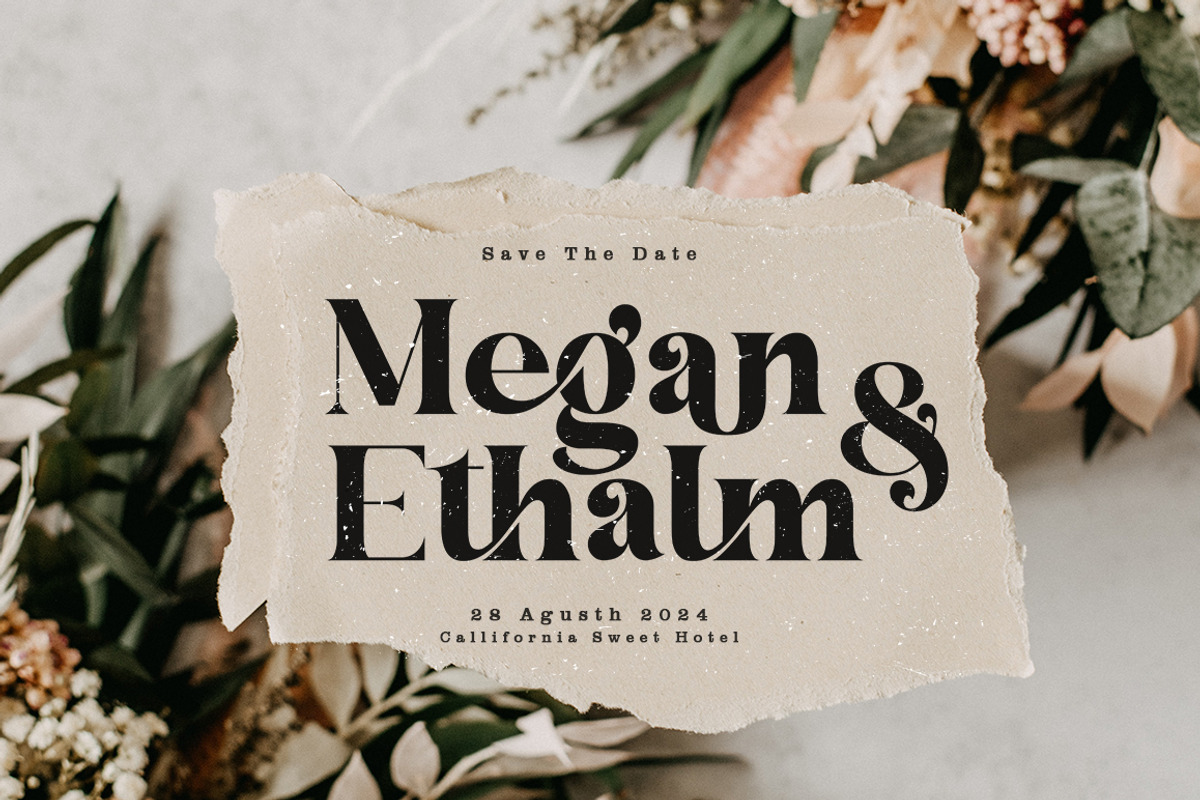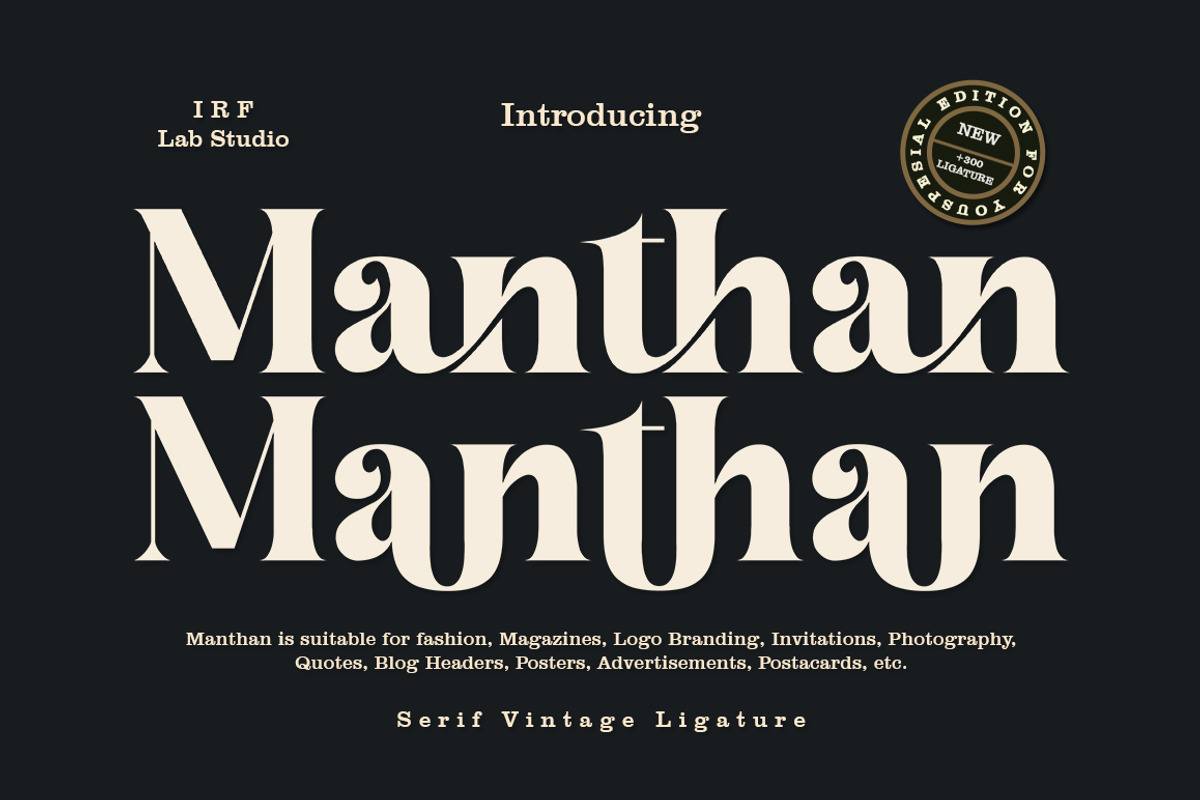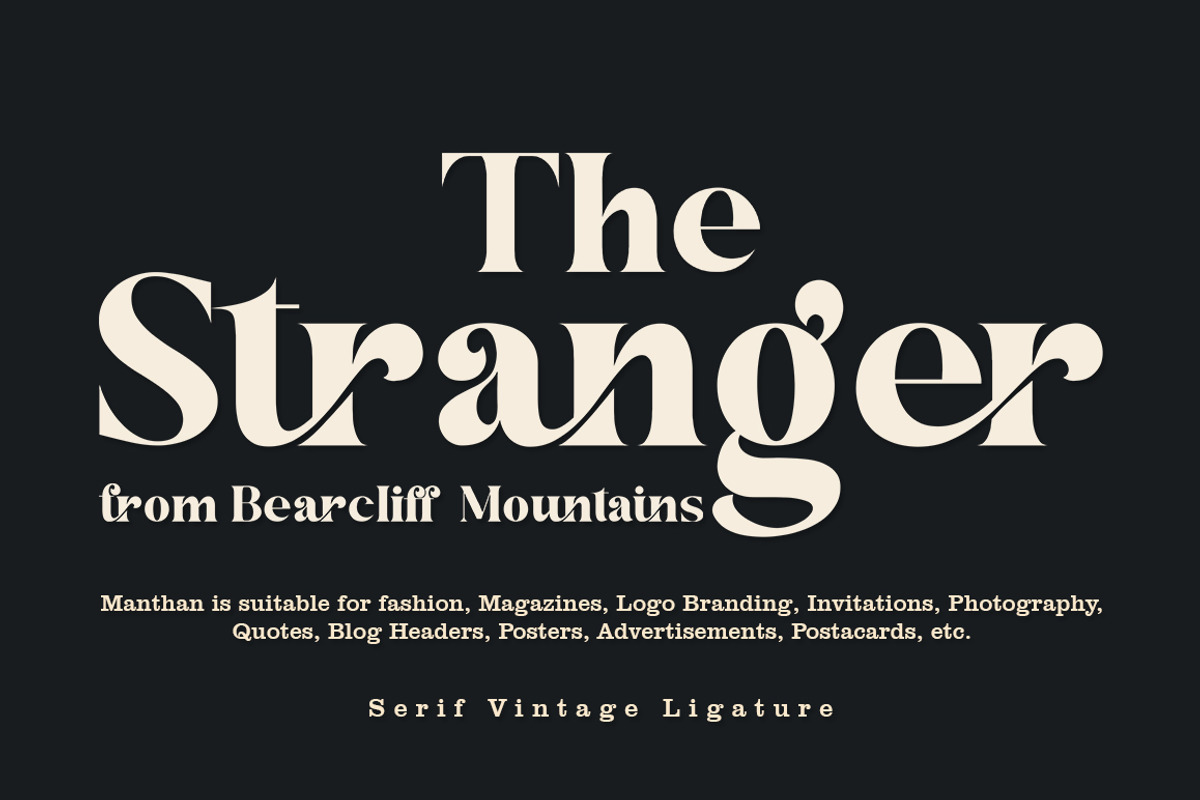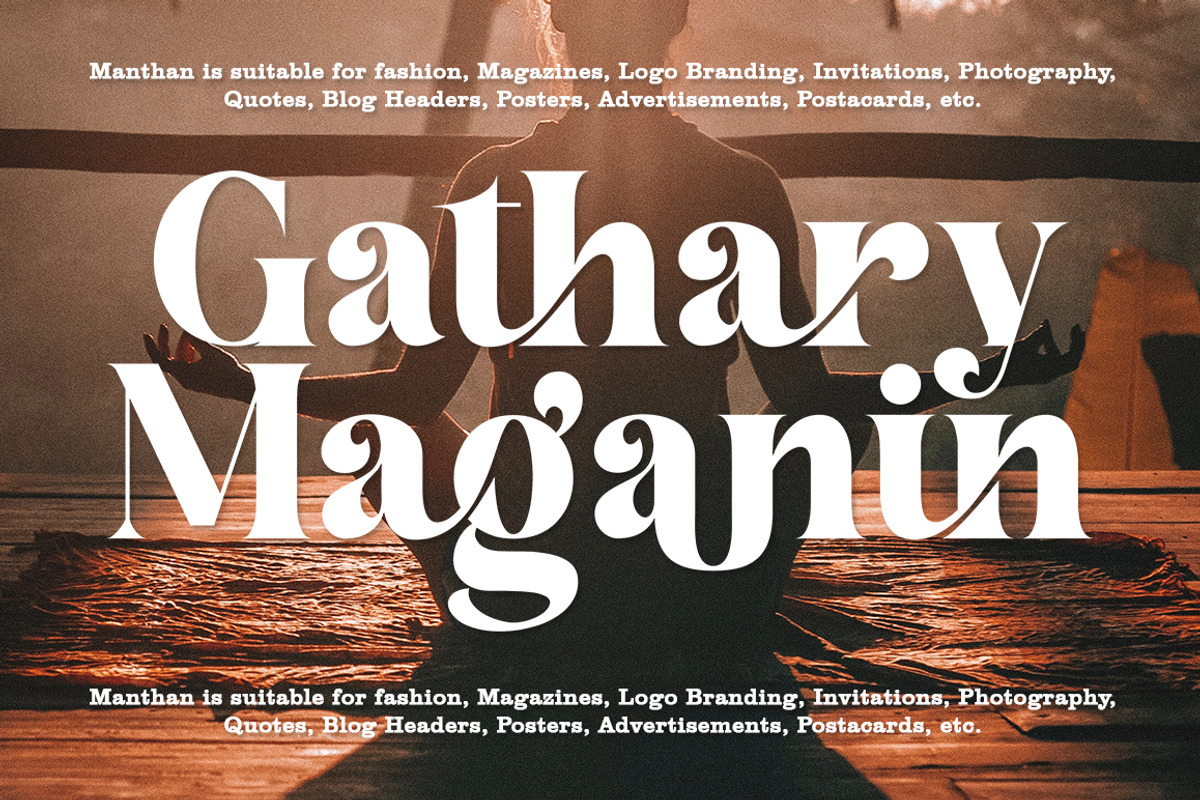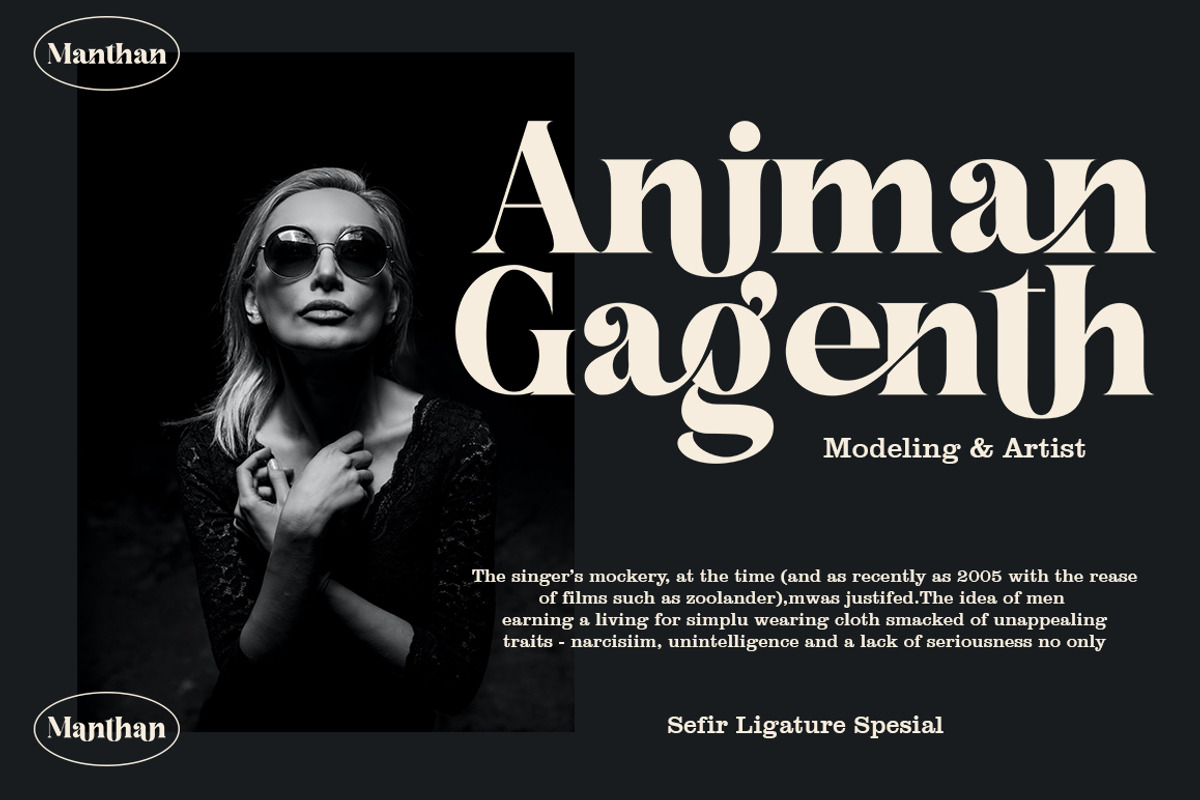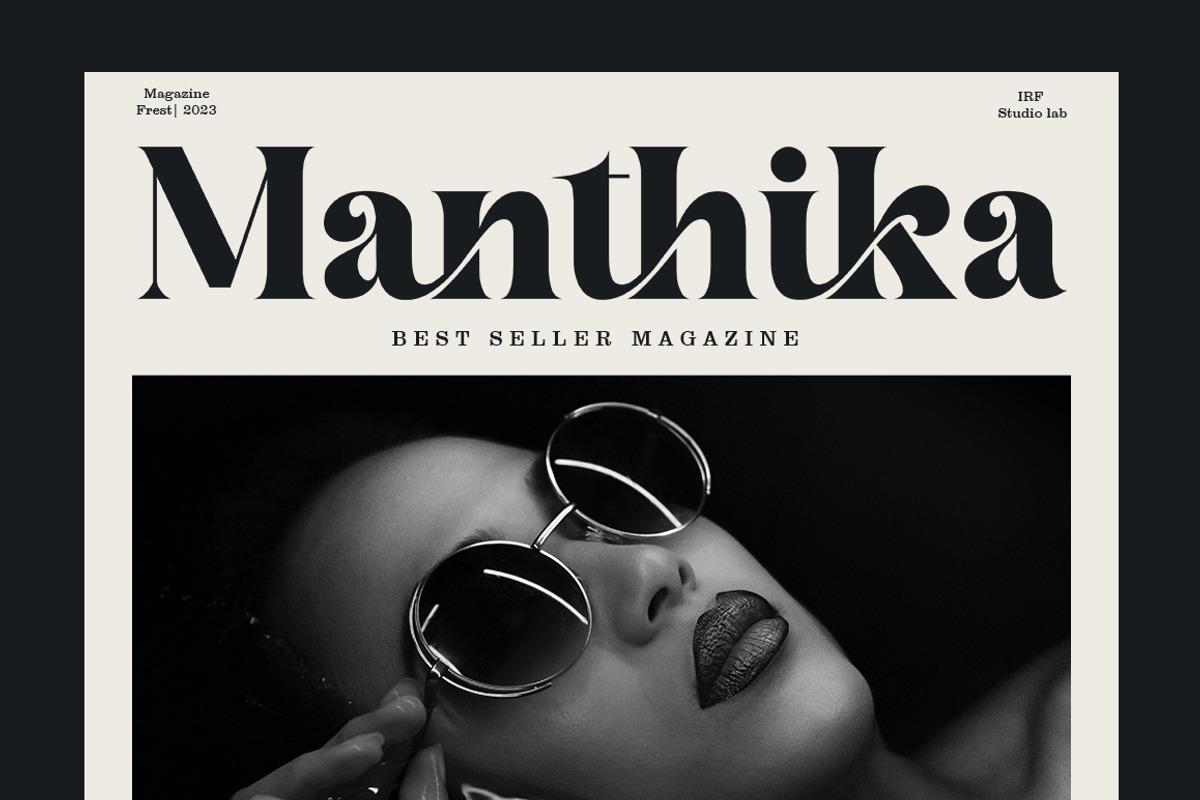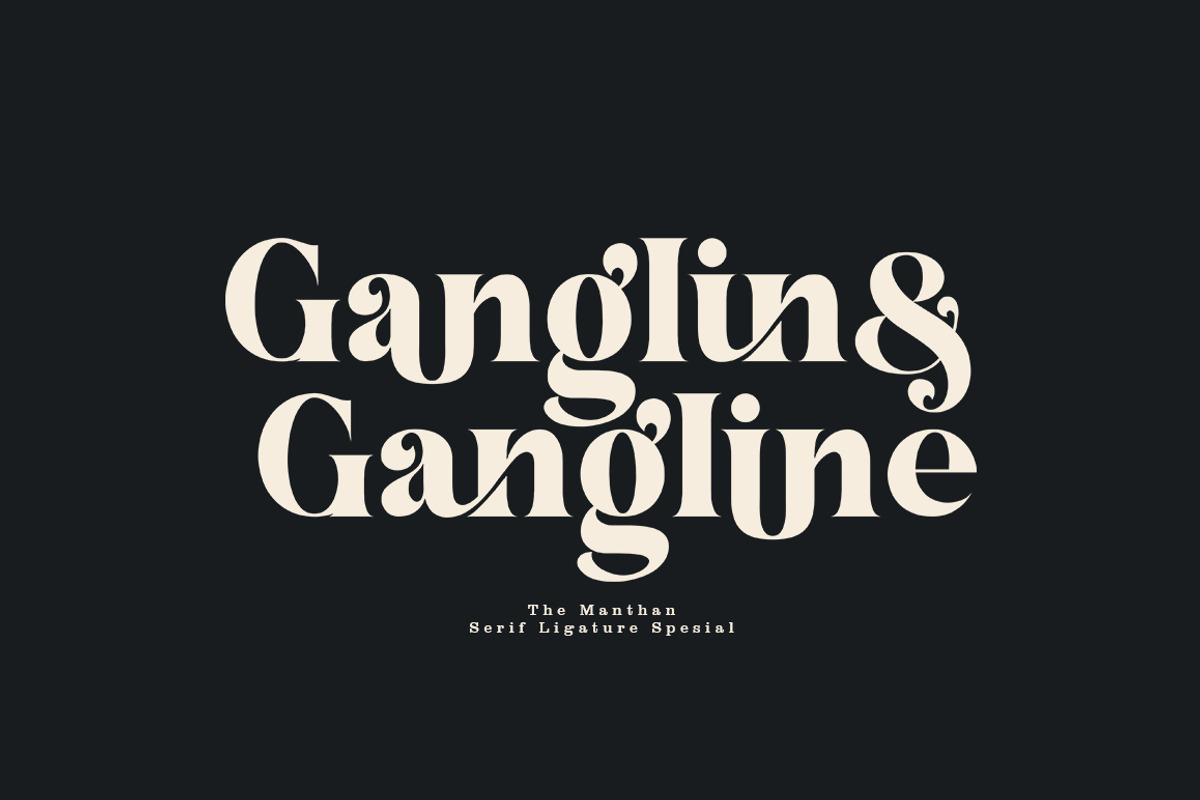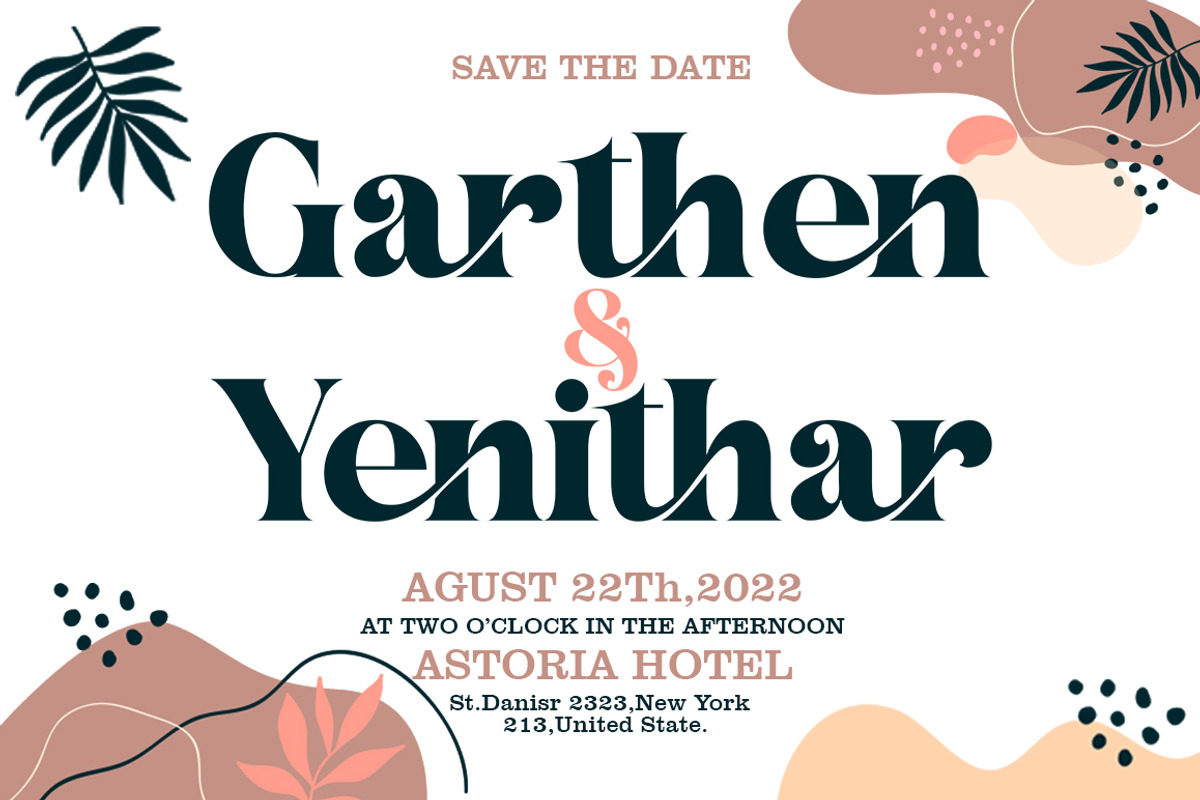
Manthan - Ligature Spesial
Manthan is a stylish vintage LIgature font inspired by a groovy 70s vibe with a touch of modernity. It looks amazing at display size and is easy to read in text size. Manthan comes with access to your OpenType features, a large selection of LIgature. There are two versions of this font: REGULAR and ITALIC.
Manthan is a display font created primarily for headlines, titles and other short text and is perfect for wedding invitations, advertising, vintage mood boards, branding, logo type, packaging, titles, editorial designs, and modern and vintage designs.